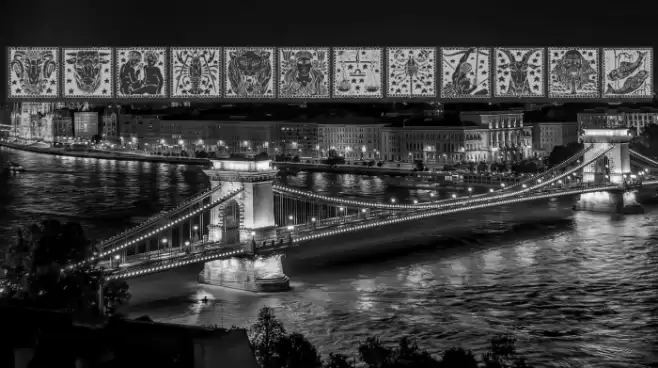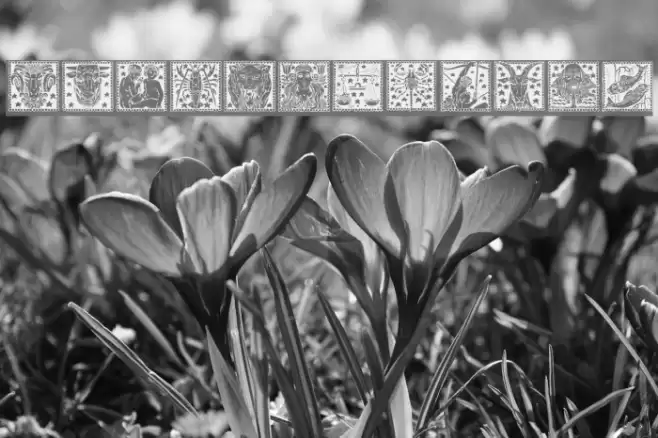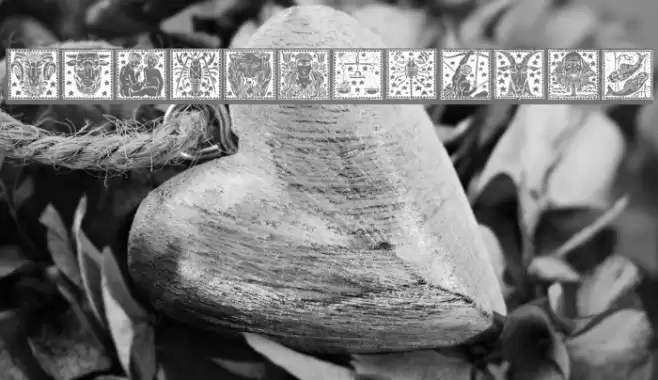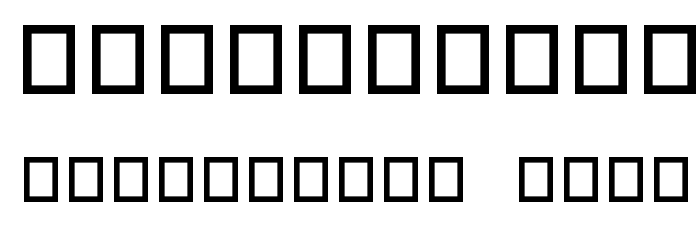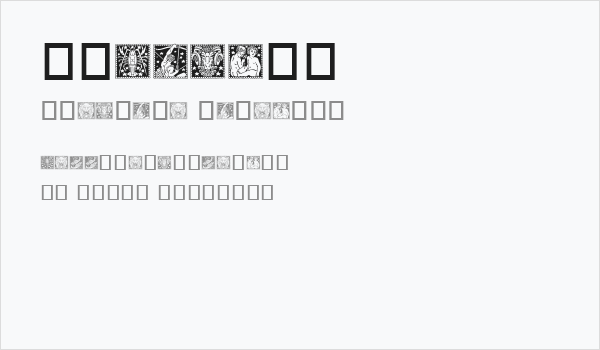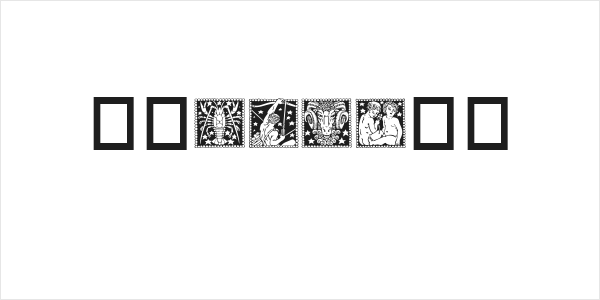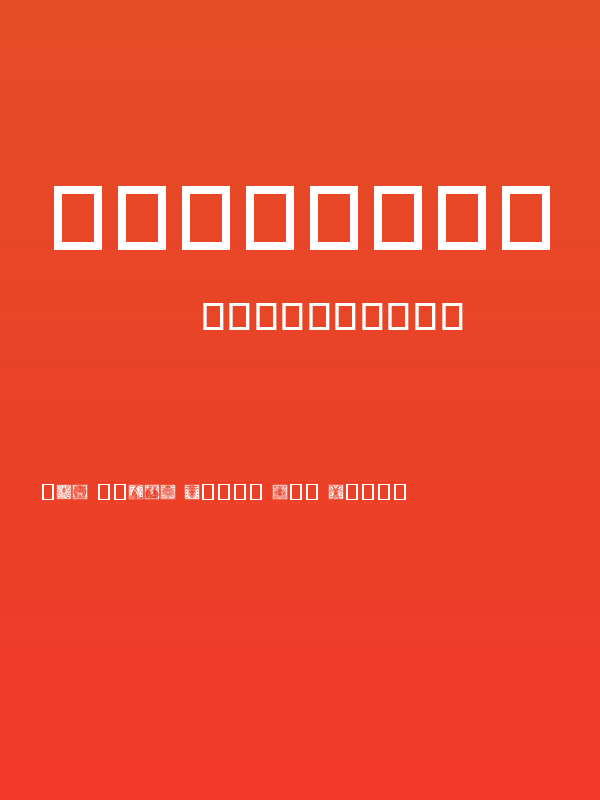
Zodiac02 Font
Zodiac02 Description
This is not a valid font. The image contains zodiac symbols or illustrations instead of a traditional alphabet or numeric characters. Each symbol appears to be intricately designed, possibly representing different zodiac signs, with detailed artwork that is more pictorial than typographic.
The image contains zodiac symbols, not a valid font from Dingbats fonts.
- Proposed Projects: This set of symbols could be used for astrological artwork, themed designs, or decorative elements in projects related to zodiac signs.
- Use Case: Decorative elements, Themed artwork